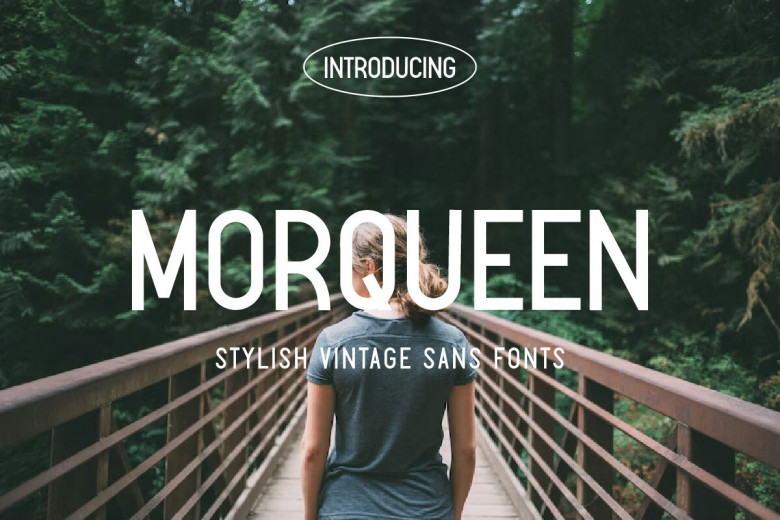
Morqueen Font
Morqueen features a masculine and vintage appearance, drawing inspiration from sans-serif typeface. It can be used for various creative projects, including vintage logo designs, website titles, advertising banners and promotional banners, elegant business cards, product packaging packages, T-shirts with graphic clothing designs and more.
Morqueen Sans Serif Font